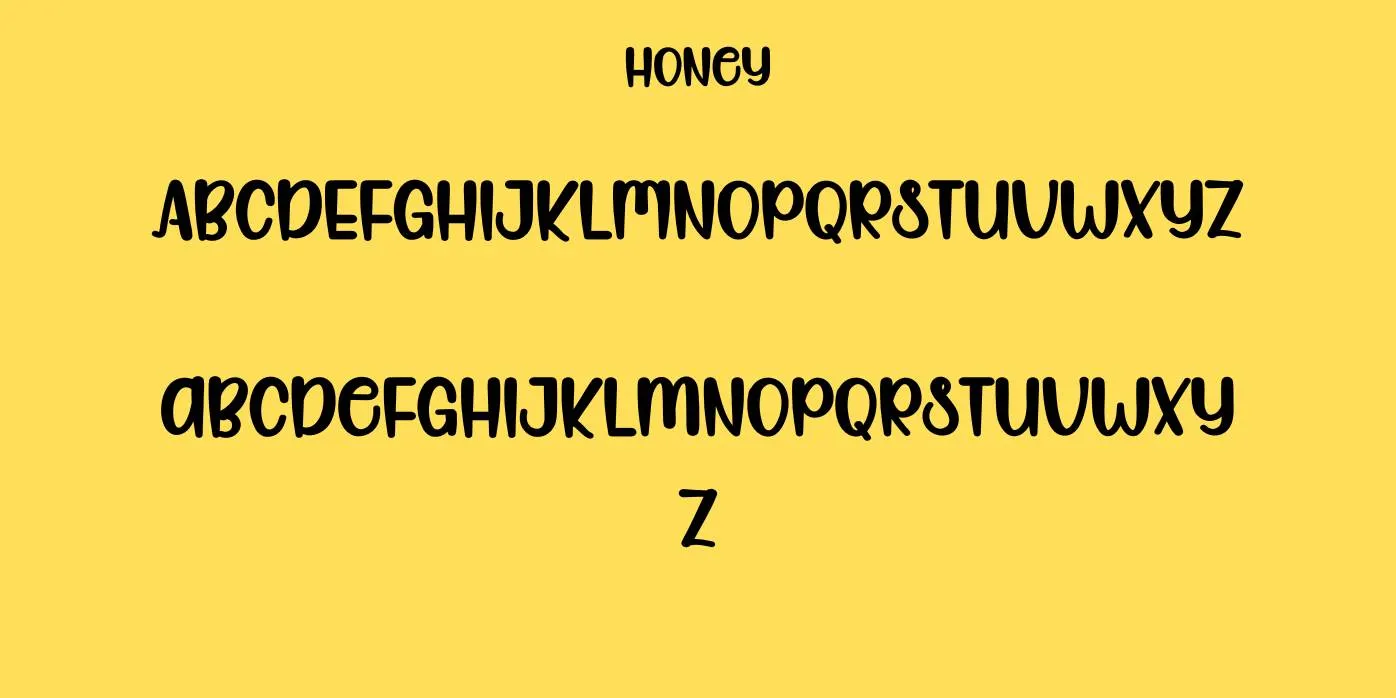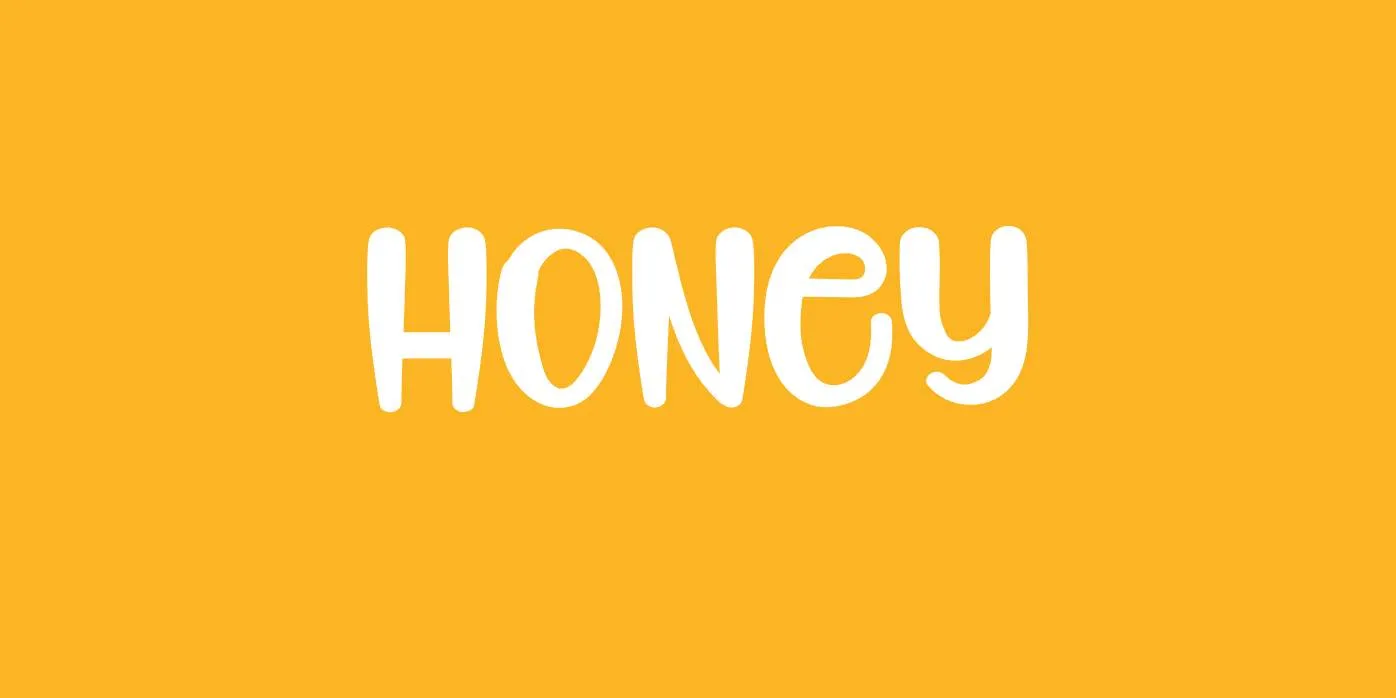
Honey Font
The Honey font is a very cute and lovable typeface. You can make so many different projects by using this font. It was designed by Aldi Raya Pradipta and manufactured by Graphix Line Studio. It contains different amazing features it has 93 characters, 115 glyphs, and 1000 units per Em.
This lovely font is used by many big organizations and companies to make their brands look different and attractive. It contains two different styles Light and Semi-Bold. An online generator tool also supports this font in which you can copy and paste your text easily and convert your simple design into a stylish look even without downloading the font. This wonderful font has two file formats OTF and TTF.
It has a very cute and lovely look and can be used to design many projects. It has characters, symbols, numbers, capital letters, small letters, punctuations, and special characters. This font can be used to design attractive headlines. You can make very cute logos for different brands by using this font.
It is a good choice for both print and digital media. It can be used to design product packaging and branding. To make different promotional banners, posters, flyers, and brochures you can use this font as well. This stunning typeface can also be used to make different brands monograms that are related to food items, especially Honey.
Can I use Honey font for making Logos? Yes, it is a very attractive script font and can be used to design many different projects you can make eye-catching logos by using this font.